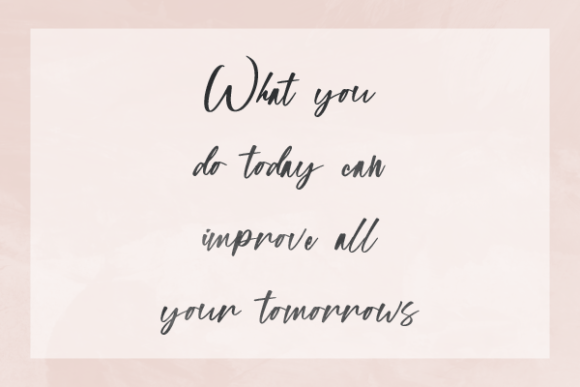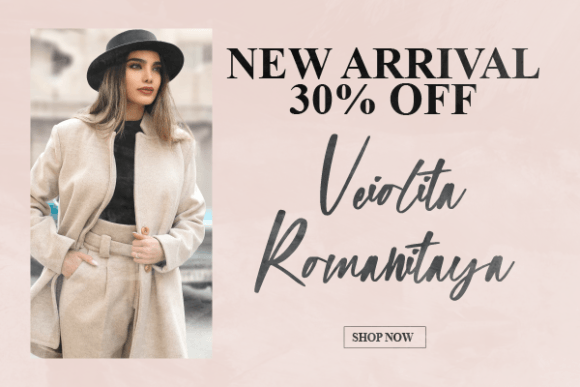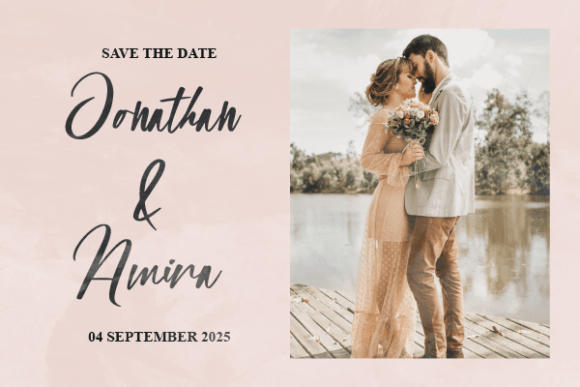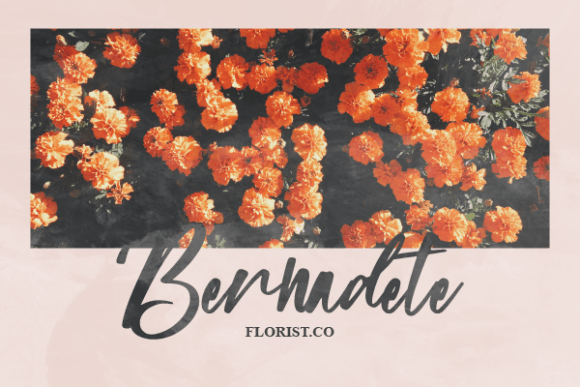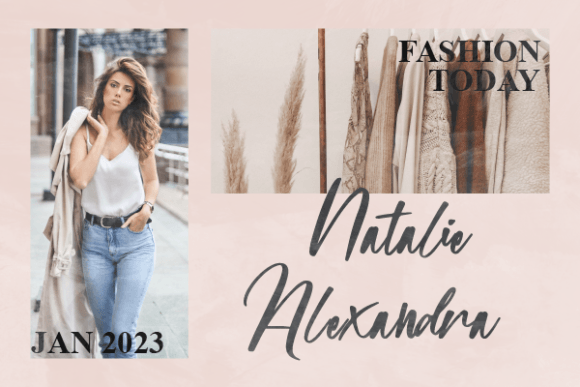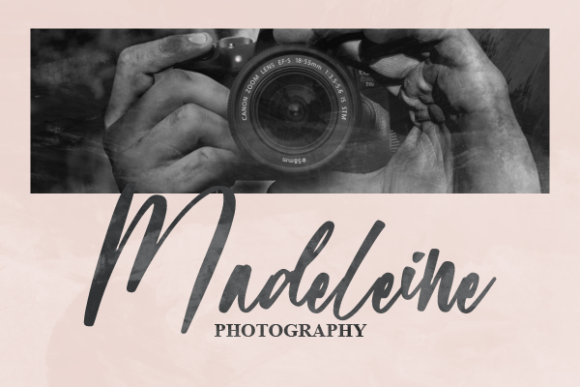
Introduction to James Murray Font
Have you ever been working on a creative project and felt like something was missing? A spark of elegance that elevates your design from good to great? For designers, finding the perfect font can be the difference between a project that’s just okay and one that truly shines. That’s where the James Murray Font comes in – a masterfully designed handwritten font that brings a touch of sophistication and whimsy to any design.
With its classy calligraphic influences and contemporary feel, the James Murray Font is the perfect resource for designers looking to add some high-quality flair to their projects. Whether you’re working on a branding campaign, a wedding invitation, or a blog post, this font is sure to bring your design to life in a way that’s both fresh and timeless.
Key Features of James Murray Font
- Unique, elegant design with a transparent background for seamless integration
- Perfect for designers, artists, and writers looking for a sophisticated font for their next project
Honest Review: James Murray Font
As a designer, I’m always on the lookout for high-quality design resources that can elevate my creative projects. The James Murray Font is one such resource that caught my attention, and I’m excited to share my honest review with you.
- ✨ The James Murray Font has a clean and elegant design that’s perfect for various creative projects, from posters to business cards.
- ✨ The font has a transparent background, which makes it easy to use with various backgrounds and design elements.
- ⚠️ The font only comes in a few weights, which might limit its use in certain design projects.
- ⚠️ Some users might find the font a bit too minimalist, which might not be suitable for all design styles.
Overall, I’m impressed with the James Murray Font. It’s a high-quality design resource that’s perfect for designers who want a clean and elegant font for their creative projects. While it has its limitations, I believe it’s a great addition to any designer’s toolkit.
Some tips for getting the most out of the James Murray Font include using it in combination with other high-quality design resources and experimenting with different font sizes and styles. Common use cases include designing logos, graphics, and presentations for creative projects.